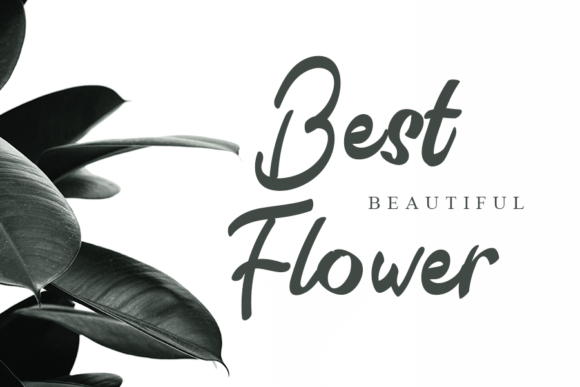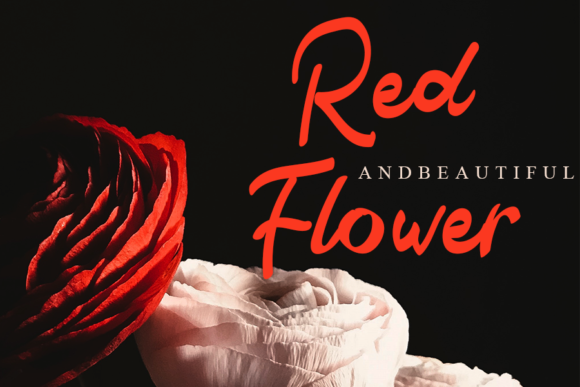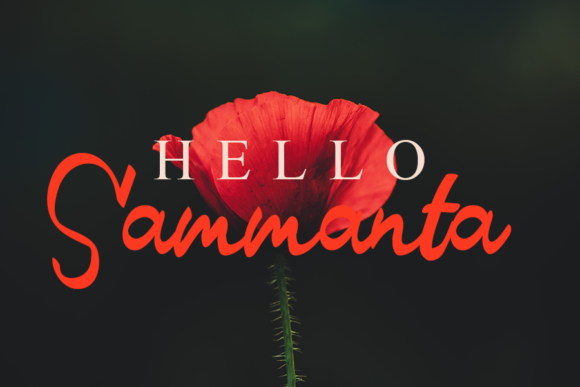
Introduction to Qistis Blistist Font Font
Fonts play a crucial role in design, and the Qistis Blistist Font font is a typeface that brings both character and versatility to any project. Whether you’re working on a branding project, a website, or a print design, the Qistis Blistist Font font offers a unique style that can elevate your work.
Qistis Blistist is an incredibly unique and delicate handwritten font.
Beautifully created with the help of a brush pen, this font looks great on a wide variety of designs, both formal and non-formal .
Key Features of Qistis Blistist Font Font
Why Choose Qistis Blistist Font Font?
The Qistis Blistist Font font is more than just a typeface – it’s a design tool that helps you communicate your message with style and clarity. Its unique character set and versatile design make it suitable for a wide range of applications, from elegant invitations to bold headlines.
With its carefully crafted letterforms and balanced proportions, the Qistis Blistist Font font ensures readability and visual appeal across all mediums.
What makes Qistis Blistist Font font special?
The Qistis Blistist Font font stands out with its unique design, exceptional readability, and versatility across various design applications.